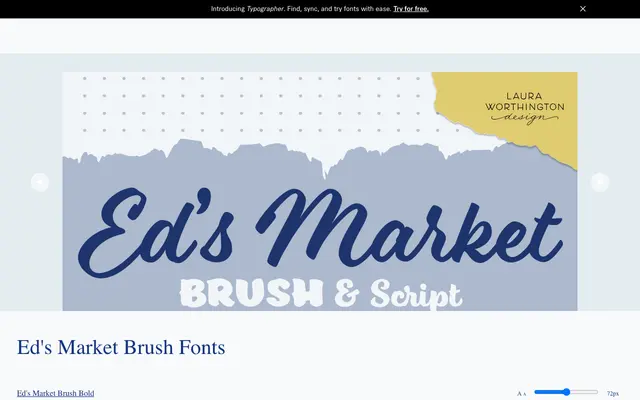
Ed's Market
A hand-lettered brush and script family drawing on 20th-century grocery poster and showcard lettering traditions, with three letter variations per character to avoid mechanical repetition.
Each weight and variant in the family was individually hand-lettered rather than derived computationally, giving the seven brush display faces and three script styles a consistent but genuinely varied texture. Smart OpenType programming cycles through three alternates per character so repeated letters do not betray themselves. Supplementary Design Elements glyphs supply arrows, ribbons, badges and other period signage ornaments to complete the aesthetic.
The family is built on hand-lettered brush and script styles rooted in 20th-century showcard and grocery poster lettering, placing it firmly in the script category with a brush display subcategory.